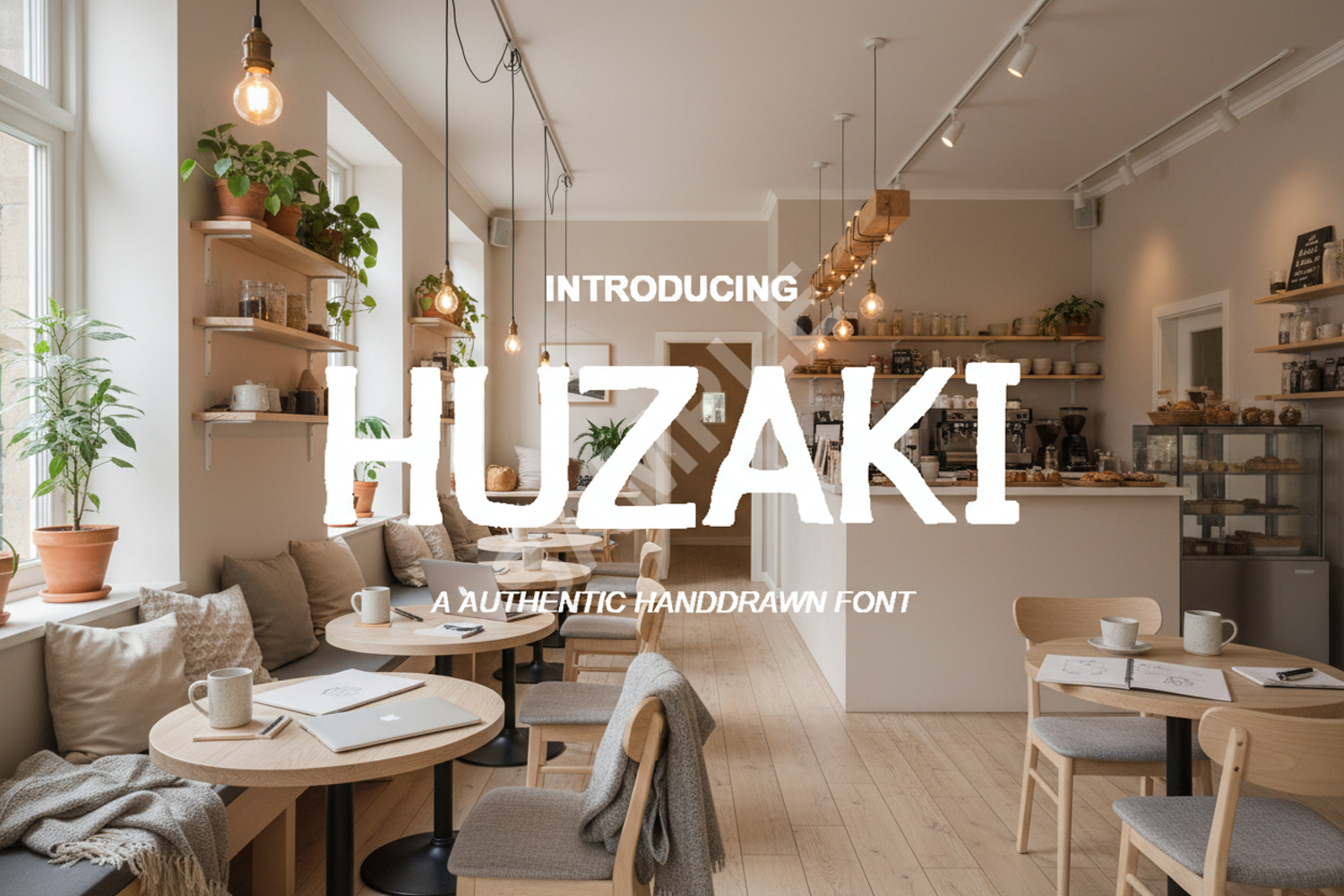
Huzaki - Sophisticated Modern Serif Typeface
Huzaki
Huzaki is a premium serif typeface crafted for those who seek elegance and versatility in their design projects. With its clean lines and unique character shapes, Huzaki brings a touch of luxury and timelessness to any layout. Whether you are working on a high-end fashion magazine or a minimalist brand identity, this font provides the professional edge and readability your work deserves.
- Complete Alphabet and Standard English Character Set
- Comprehensive Numerals and Punctuation
- Luxury Branding and Identity Design
- Editorial Layouts and Magazine Spreads
- Elegant Wedding Stationery and Invitations
- High-end Product Packaging and Labels
- Professional Logo Design and Social Media Graphics
- Modern Website Headers and Digital Print Media